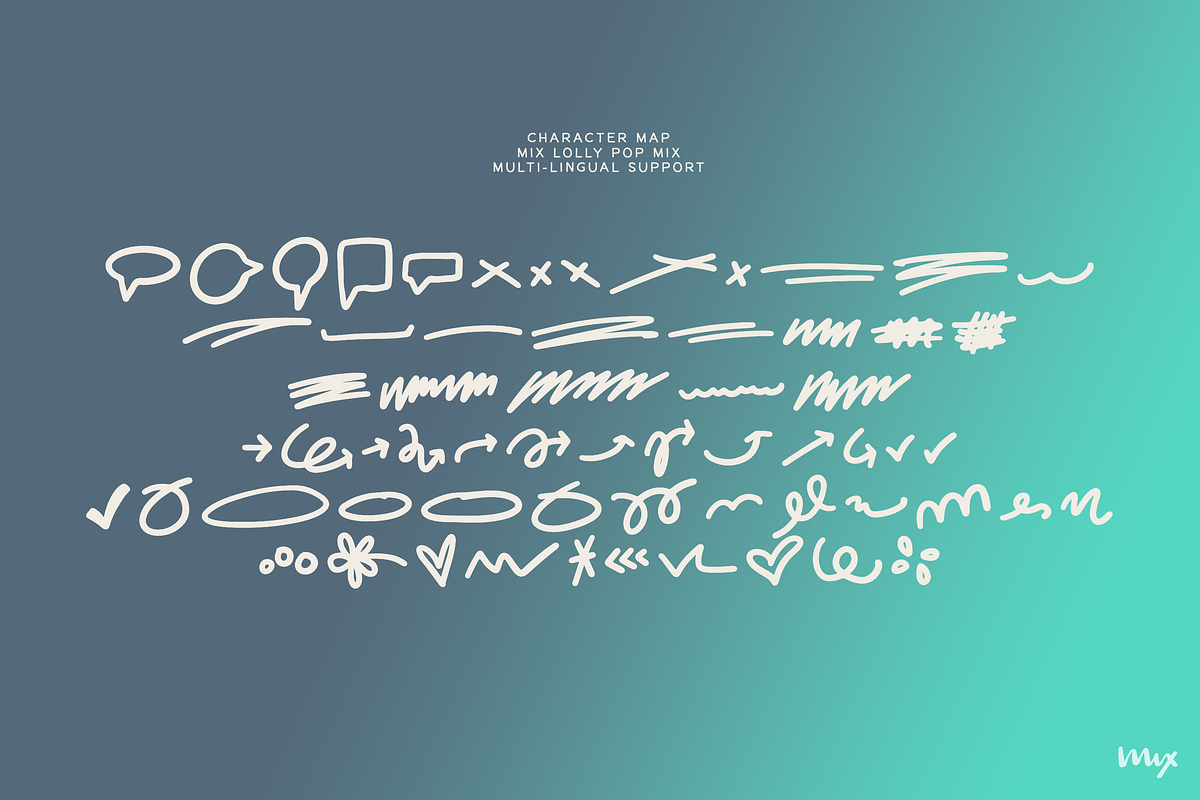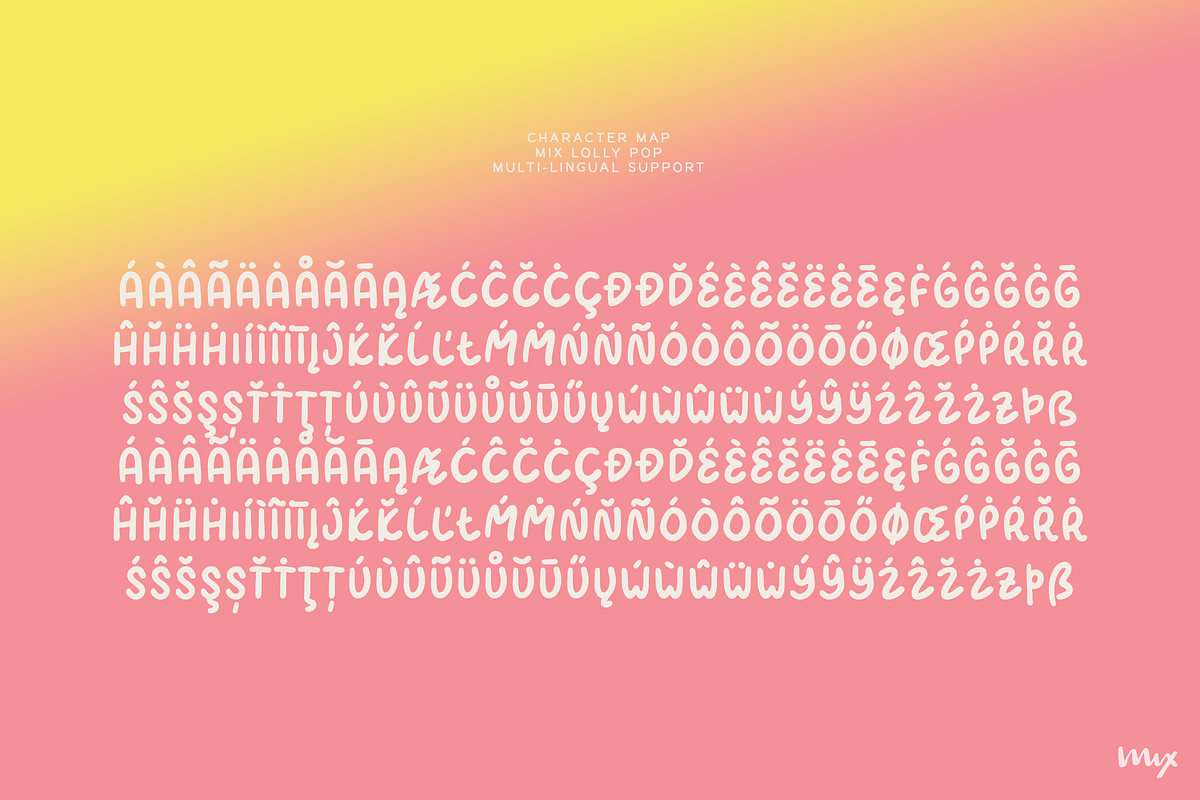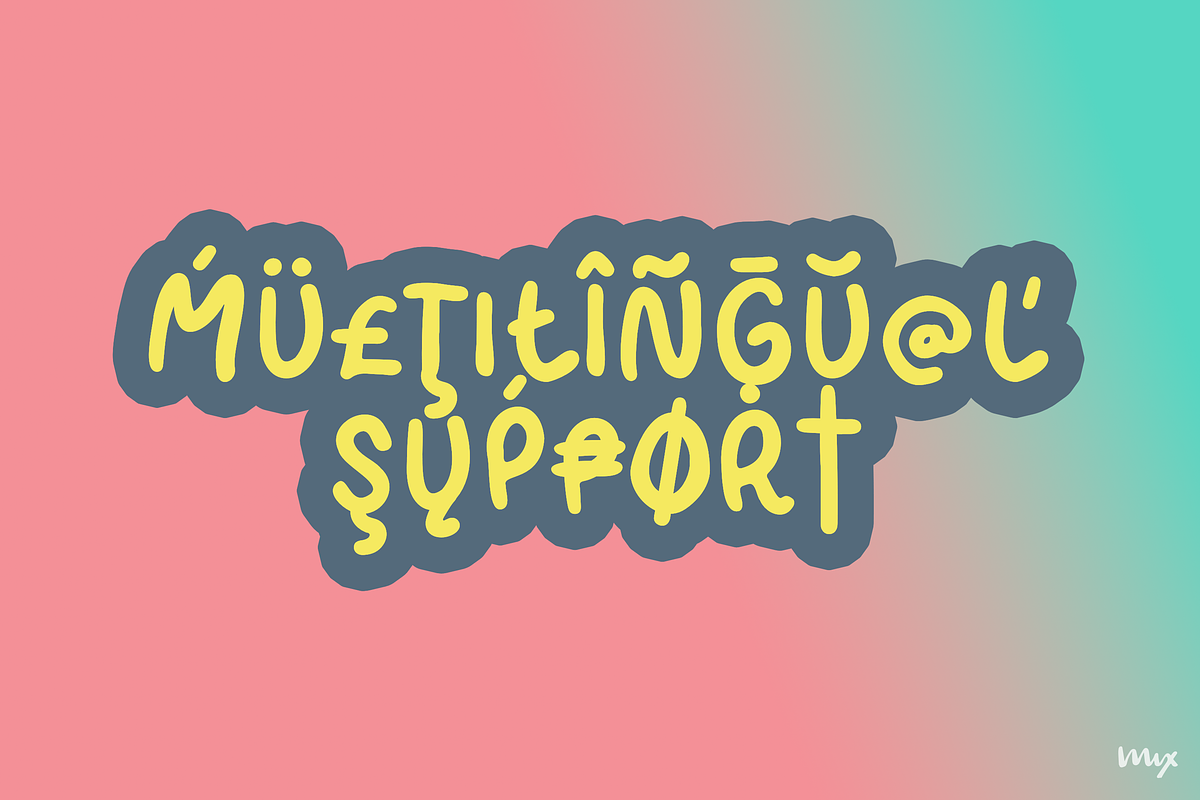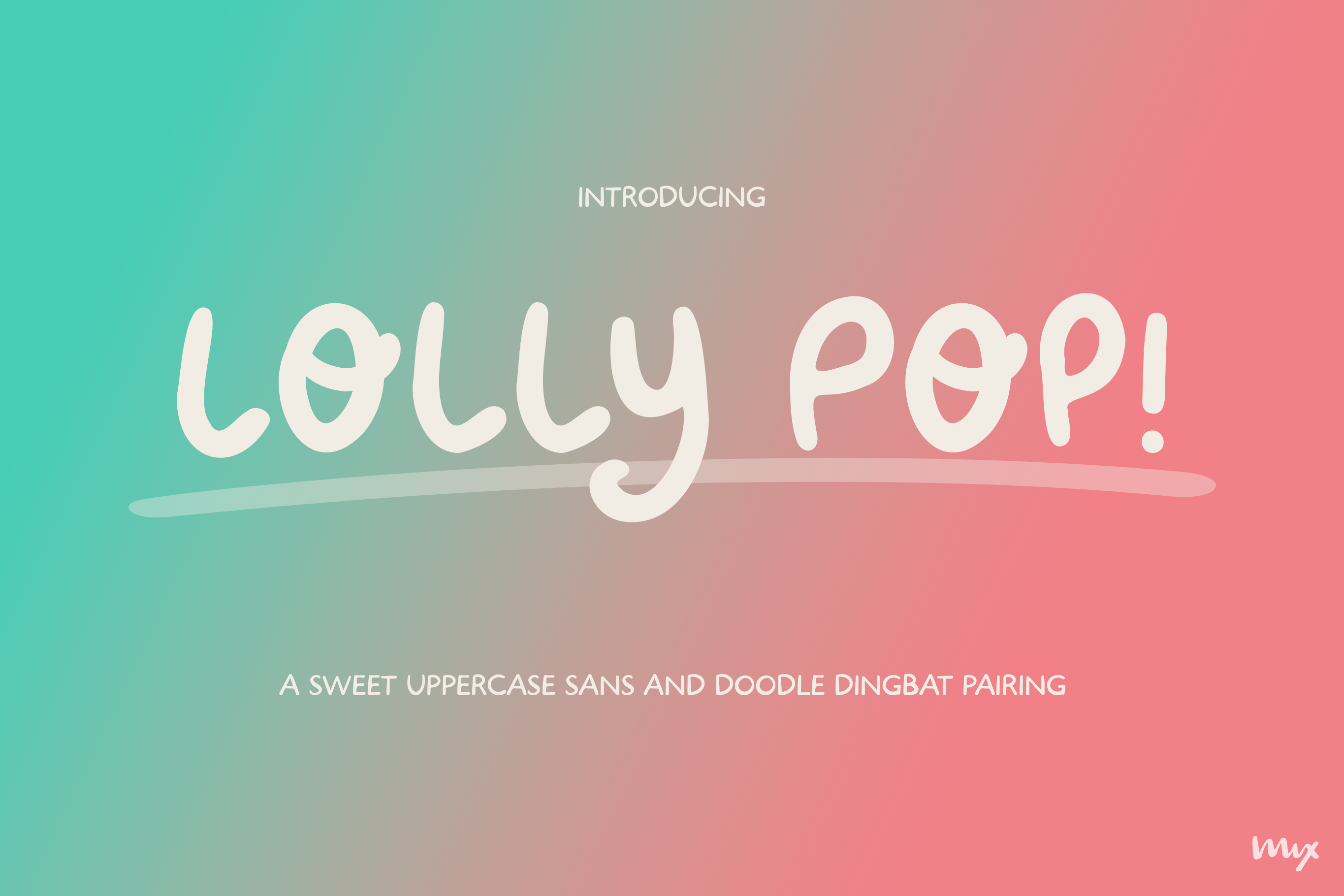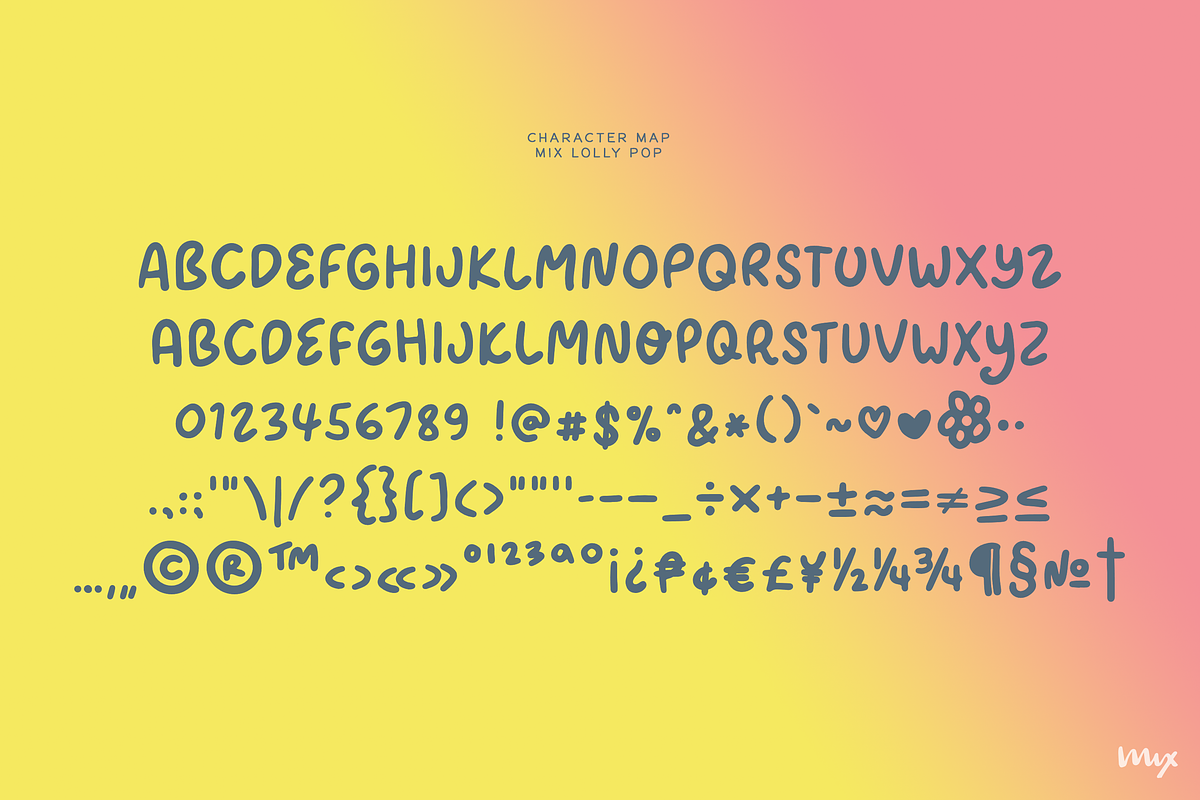
Lolly Pop - A Sweet Doodle Font Duo
Playful, bouncy, and built for bold designs. Lolly Pop is a fully uppercase handwritten sans serif for designers, Etsy sellers, and small business owners who want their work to feel fun without looking generic.
To sweeten the deal, LOLLY POP comes as a duo bundle with the LOLLY POP MIX dingbat! This delightful addition includes 62 doodles — hearts, Xs, cross outs, underlines, circles, arrows, and squiggles — corresponding to AZ, az, and 0-9. Whether you're looking to add handwritten charm to your designs or make your text pop with creative doodles, this bundle has you covered.
The font's multilingual support makes designing with text in other languages simpler and easier, helping you connect with a global audience.
- Social media graphics and Canva templates
- Sticker sheets and Cricut projects
- Greeting cards, gift tags, and packaging
- Food packaging and product labels
- Book covers, posters, and headers
- Small business branding and Etsy shop graphics
Mix Lolly Pop -- bouncy uppercase handwritten sans serif with full multilingual character support. Mix Lolly Pop Mix -- 62 hand-drawn dingbats including hearts, arrows, circles, squiggles, and decorative accents. Both provided as OTF and TTF, compatible with Mac and Windows.